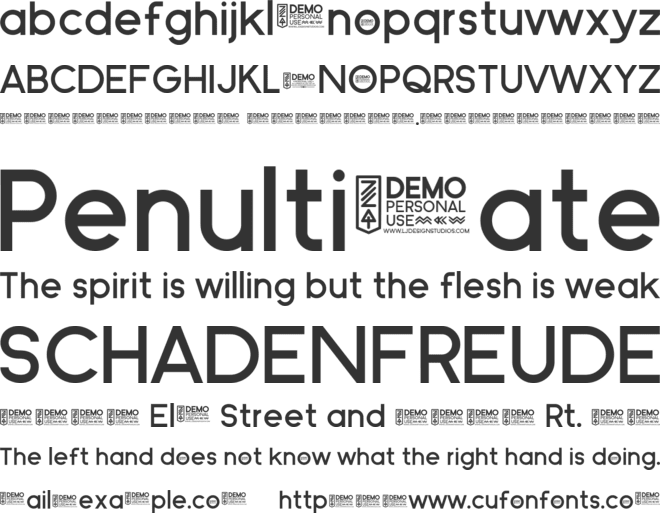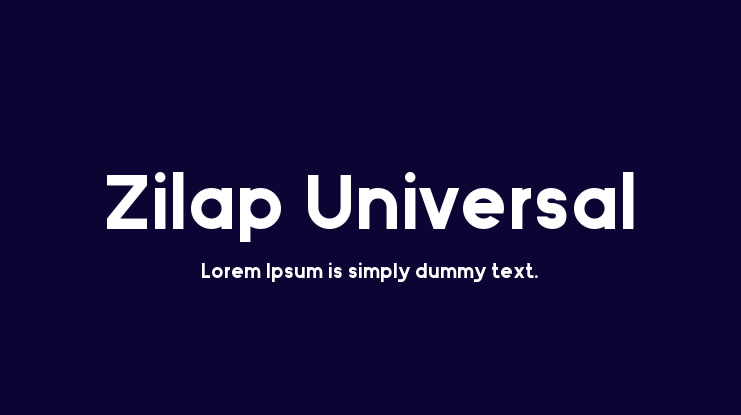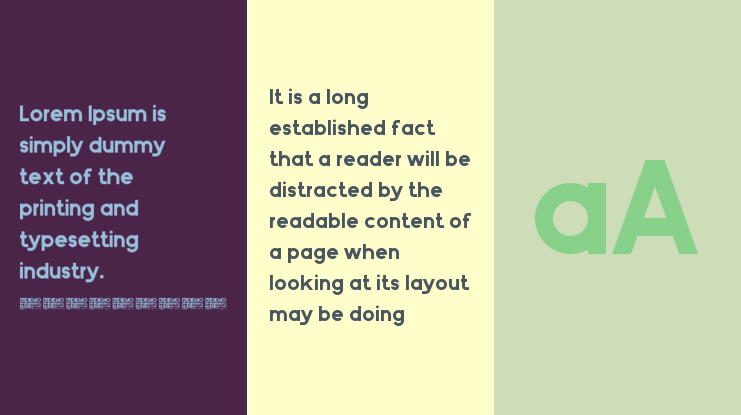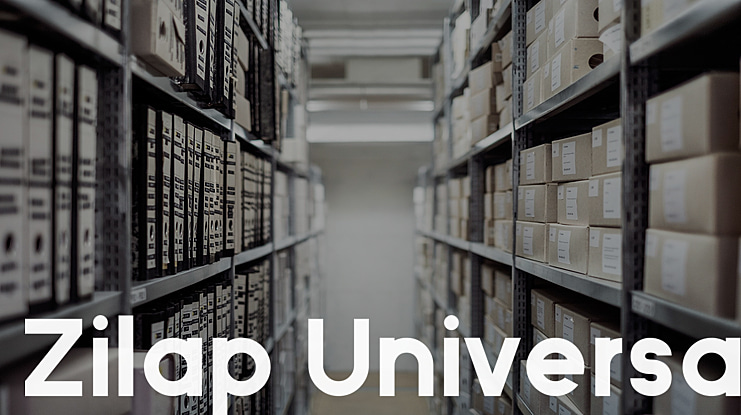
Zilap Universal Font Family
ZILAP UNIVERSAL FAMILY FONT / Personal Use / is a simple and modern font, designed with great readability to be used in different graphic settings, it has 12 very well defined versions, its geometric concept makes it an elite font, which will fit perfectly in all types of national or global project.
Inspired and designed by Zilap Studio
Zilap Study. Designer of typographic fonts with urban, futuristic, cultural and geometric concepts with commercial licenses for uses, professionals, advertising and / or Events.